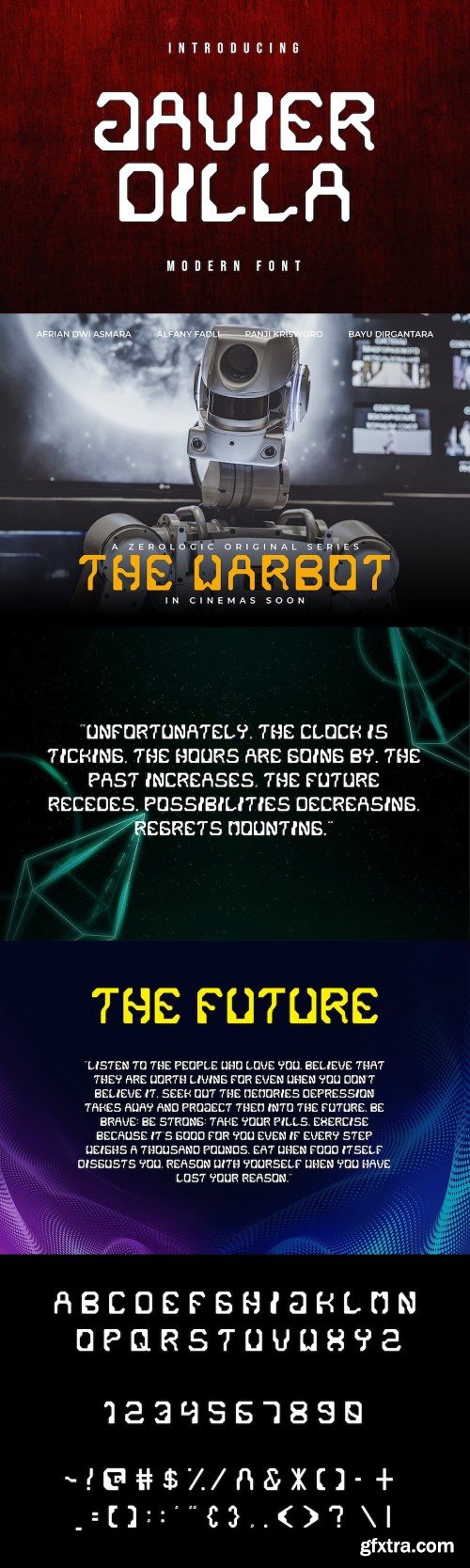
贾维尔·迪拉字体
Javier Dilla is a modern font that we designed with original touch for your needs. This cool font is complete with Uppercase, Lowercase, Numeric & symbols. This very strong and sharp font is perfect for titles, typography, posters, magazines, brochures, packaging, Websites and much more for your design needs, making your designs more cool.